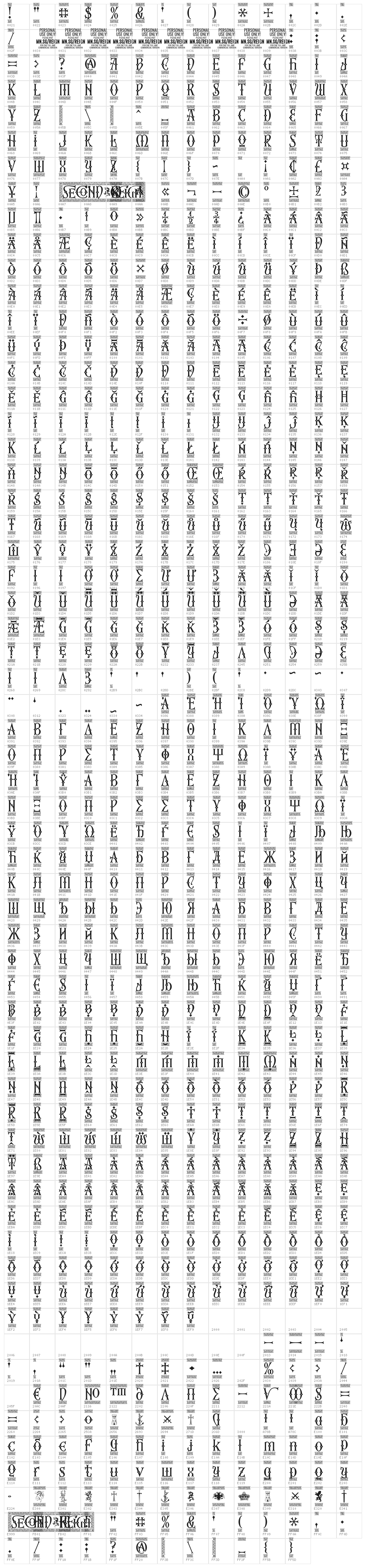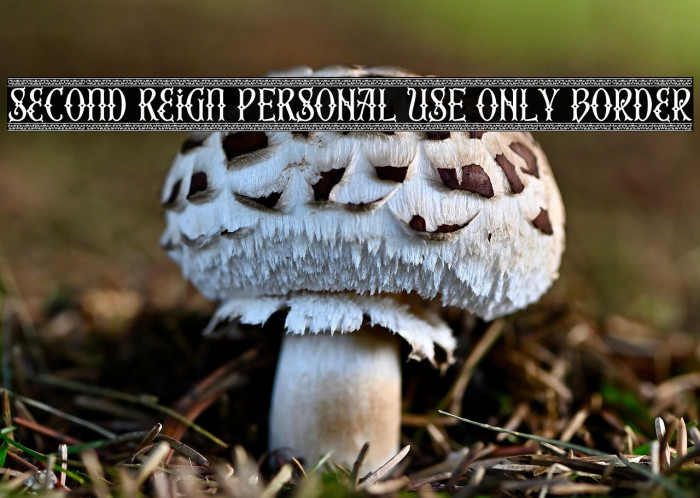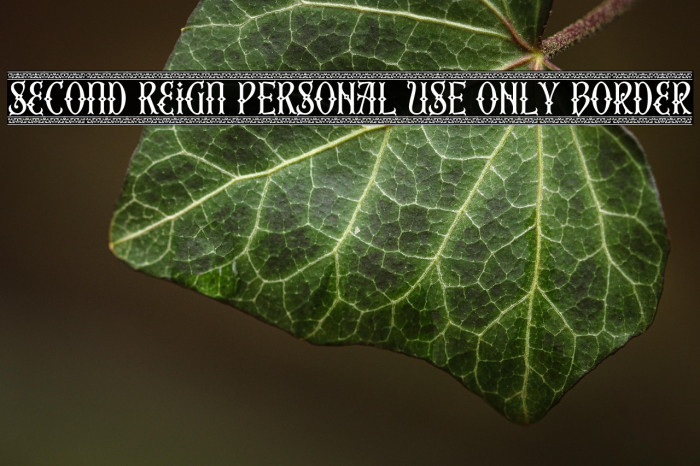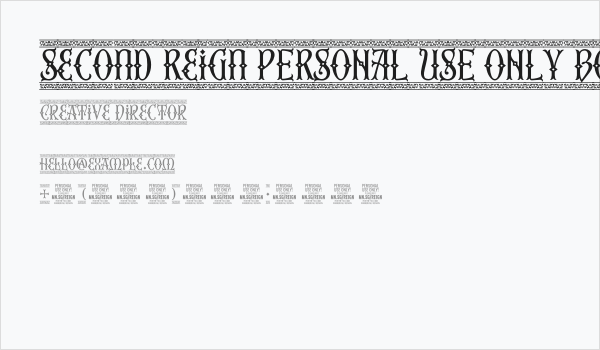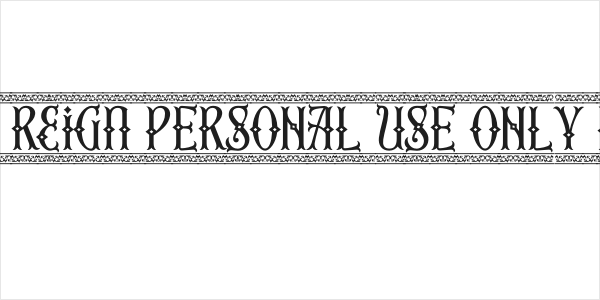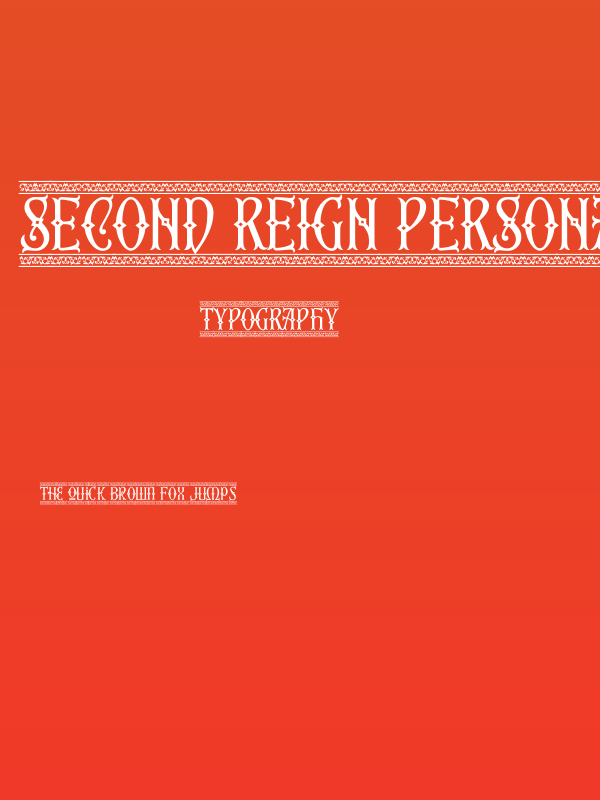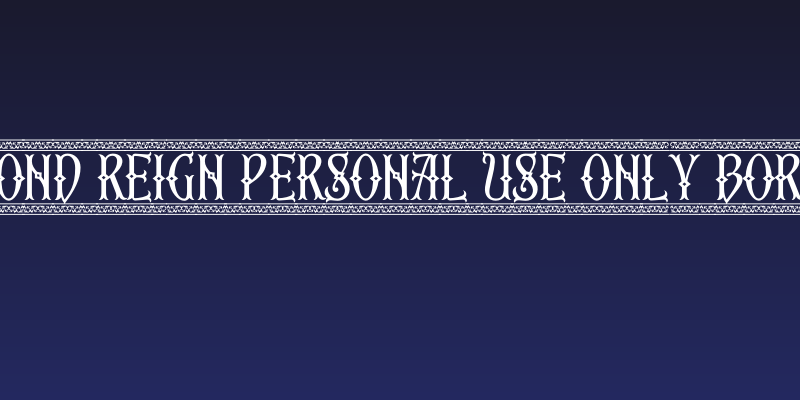
Second Reign PERSONAL USE ONLY Border Font
Second Reign PERSONAL USE ONLY Border Description
This font features a bold and decorative style with intricate details that give it a regal and gothic appearance. The uppercase letters are characterized by sharp, angular lines and unique embellishments that resemble medieval script. The lowercase letters maintain the same ornate style, ensuring consistency throughout the typeface. The numbers and special characters are equally elaborate, making them stand out with their distinctive design. This font is perfect for projects that require a dramatic and eye-catching look, such as posters, album covers, or themed event invitations.
| Overall Style | Gothic, Decorative |
| Proposed Projects | Ideal for posters, album covers, themed event invitations, and any project needing a dramatic, eye-catching typeface. |